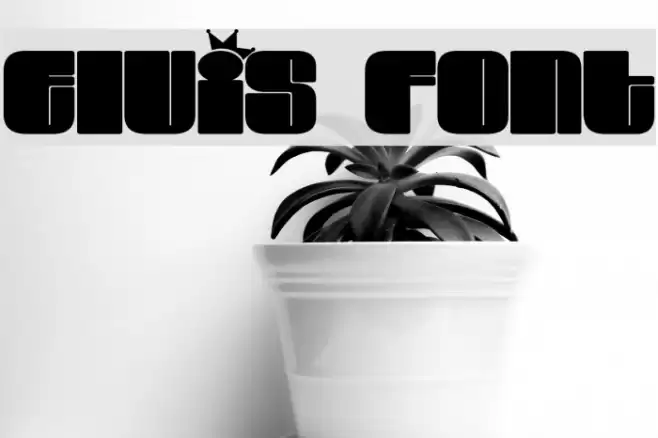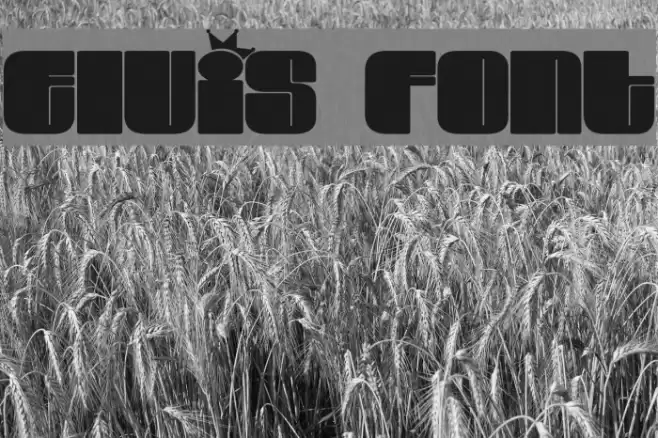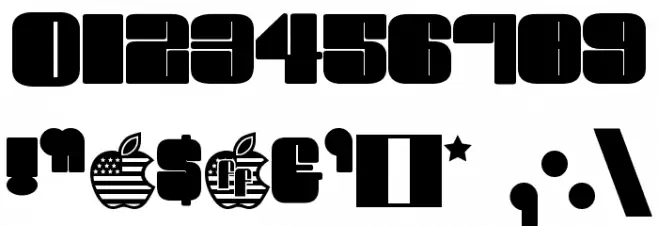
Elvis Font
Elvis Description
This font is a bold, decorative typeface with a strong, impactful presence. The characters are heavily weighted with a geometric, block-like structure, giving them a modern and futuristic appearance. The uppercase and lowercase letters maintain a consistent style, with rounded edges and uniform thickness throughout. The numbers and special characters follow the same design principles, ensuring a cohesive look across all elements. The font's unique aesthetic makes it ideal for attention-grabbing headlines and logos, where a strong visual impact is desired.
A bold, geometric, and decorative typeface with a modern, futuristic look from Decorative fonts.
- Proposed Projects: Ideal for branding, posters, album covers, and any project requiring a bold, standout typeface.